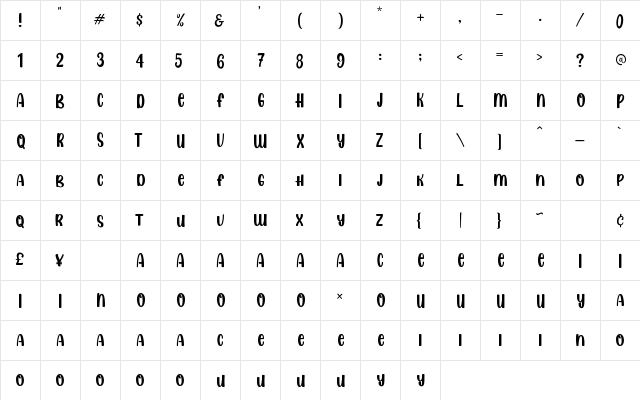
Sweet Butter Regular
| Foundry | Hans Co |
| Designer | Burhan Afif |
Design Context for Sweet Butter Typeface
Sweet Butter takes a measured approach to typography — its balanced proportions and neutral character make it a reliable workhorse for both digital and print work.